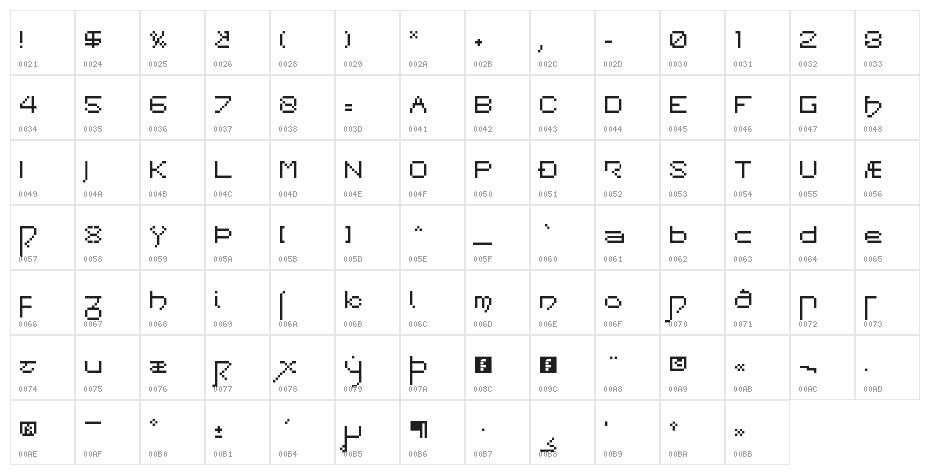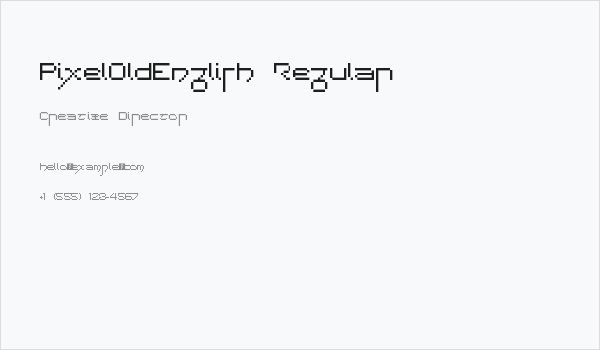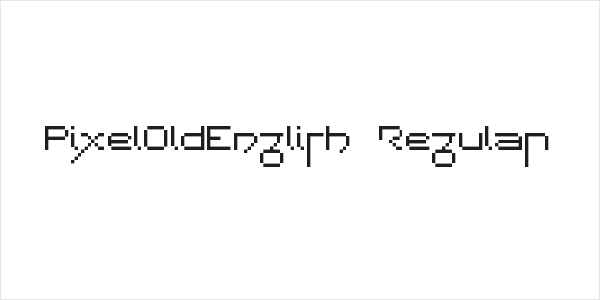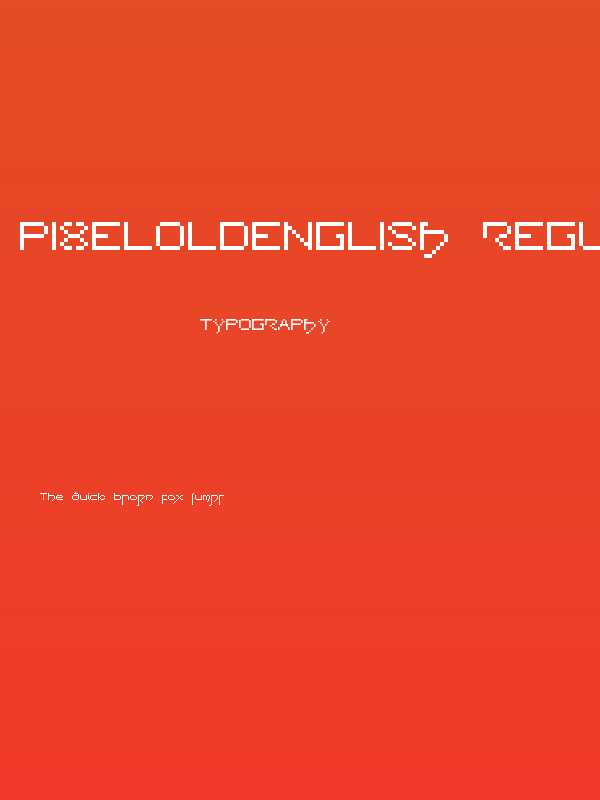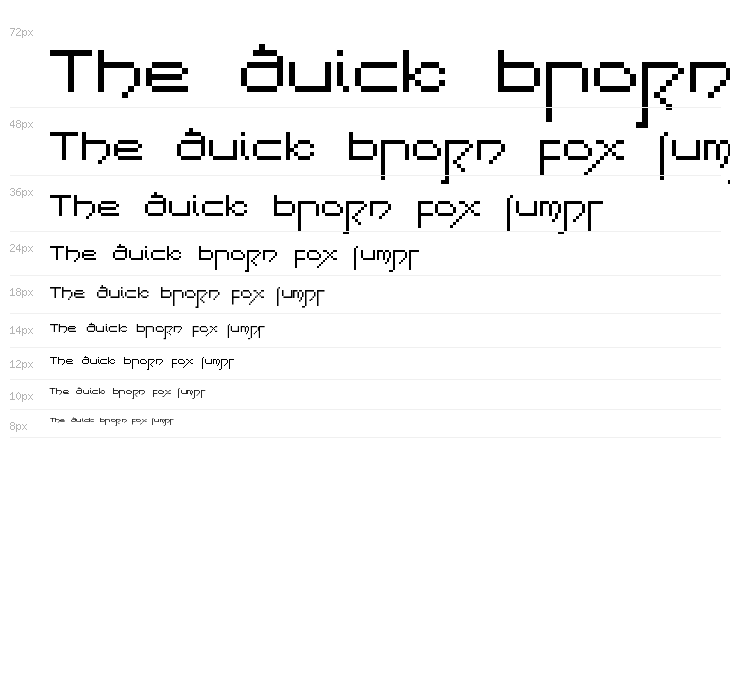
PixelOldEnglish Regular Font
PixelOldEnglish Regular Description
This font features a pixelated design reminiscent of early digital displays, with a distinct Old English influence. The characters are constructed with a grid-like precision, giving them a blocky, retro appearance. The uppercase letters are bold and angular, while the lowercase letters maintain a similar structure, providing a cohesive look across the alphabet. Numbers and special characters follow the same pixelated style, ensuring consistency throughout. This font's unique blend of digital and traditional elements makes it stand out, offering a nostalgic yet modern feel.
| Proposed Projects | Ideal for retro-themed designs, video game graphics, digital art projects, or any creative work seeking a vintage digital aesthetic. |